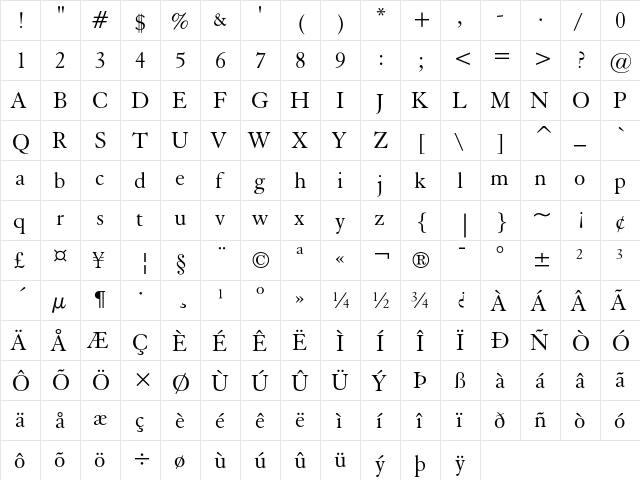
Elegant Garamond Regular
Design Context for Elegant Garamond Typeface
Elegant Garamond is a composed and adaptable typeface that performs quietly and consistently across a wide range of design contexts.